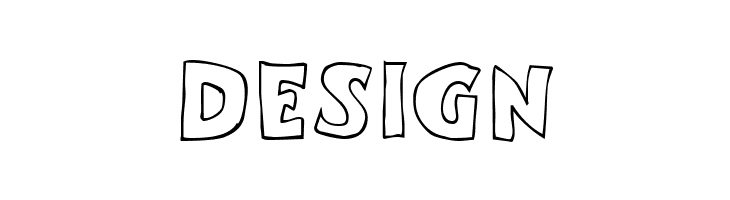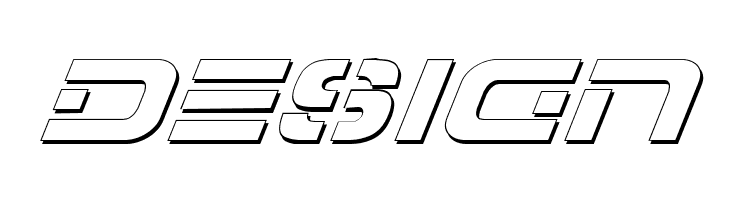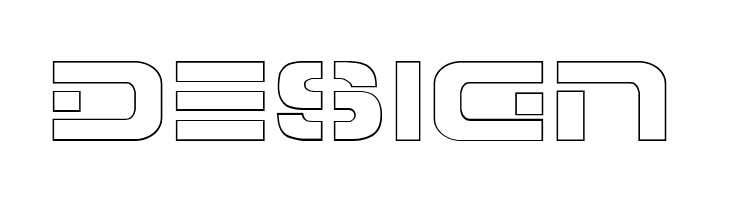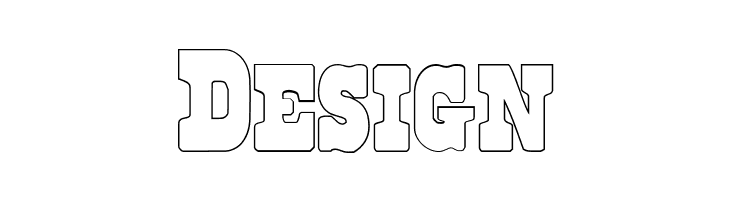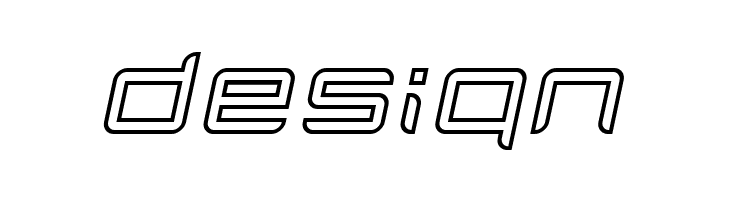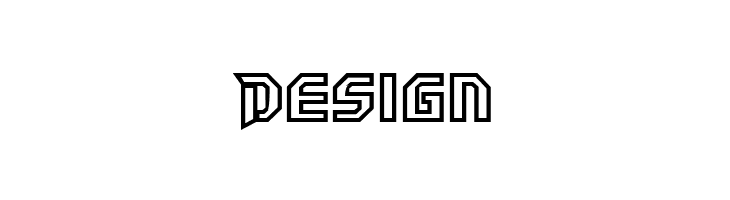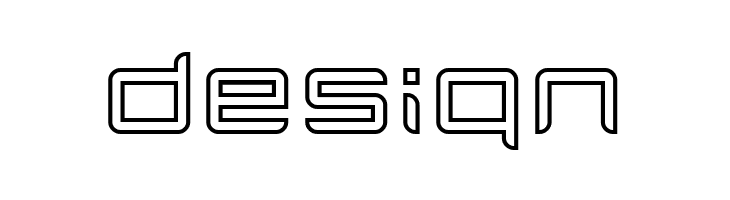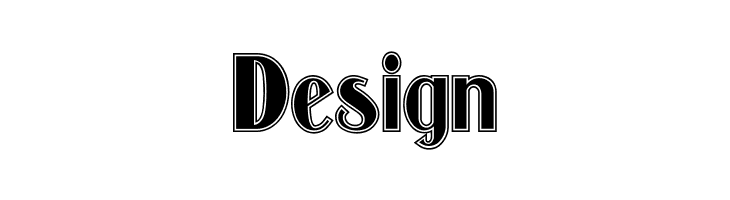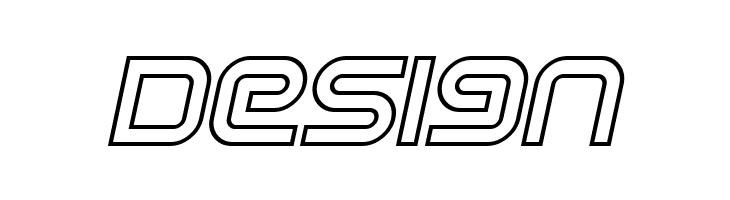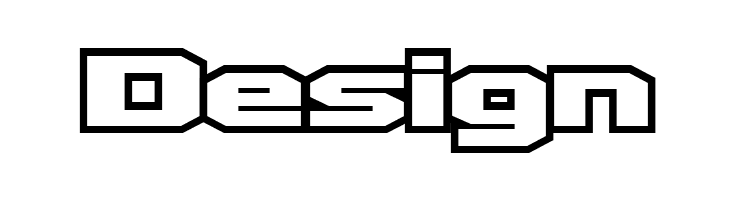
An outlined, fantasy-inspired font with sharp serifs and playful curves.
A bold, geometric outline font with a futuristic, digital aesthetic.
A playful, bold outline font with a hand-drawn, comic-style appearance.
A modern, italicized outline font with a futuristic and technical design.
A modern, geometric outline font with a futuristic and airy design.
A modern, geometric outline font with an italic slant.
A bold, geometric outline font with sharp angles and a futuristic style.
A futuristic outline font with a geometric and digital style.
A bold, outlined font with a modern yet vintage style.
A bold, geometric outline font with sharp angles and uniform thickness.
A bold, outlined font with a dynamic, comic-inspired style.
A bold, outlined font with a geometric and modern style.
A bold, italicized outline font with a modern and dynamic style.
A decorative and whimsical outline font with intricate details and flourishes.
A bold, modern outline font with geometric structure and clear readability.
A bold, outlined font perfect for impactful headlines and decorative uses.
A playful, hand-drawn outline font with a bold and whimsical style.
A modern, oblique outline font with geometric structure.
A futuristic, geometric outline font with sharp angles and straight lines.
A futuristic, geometric outline font with a laser-cut appearance.
An intricate outline font with a decorative and artistic style.